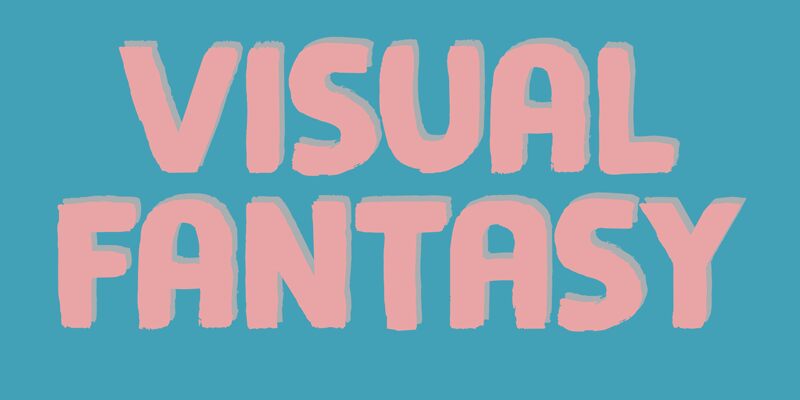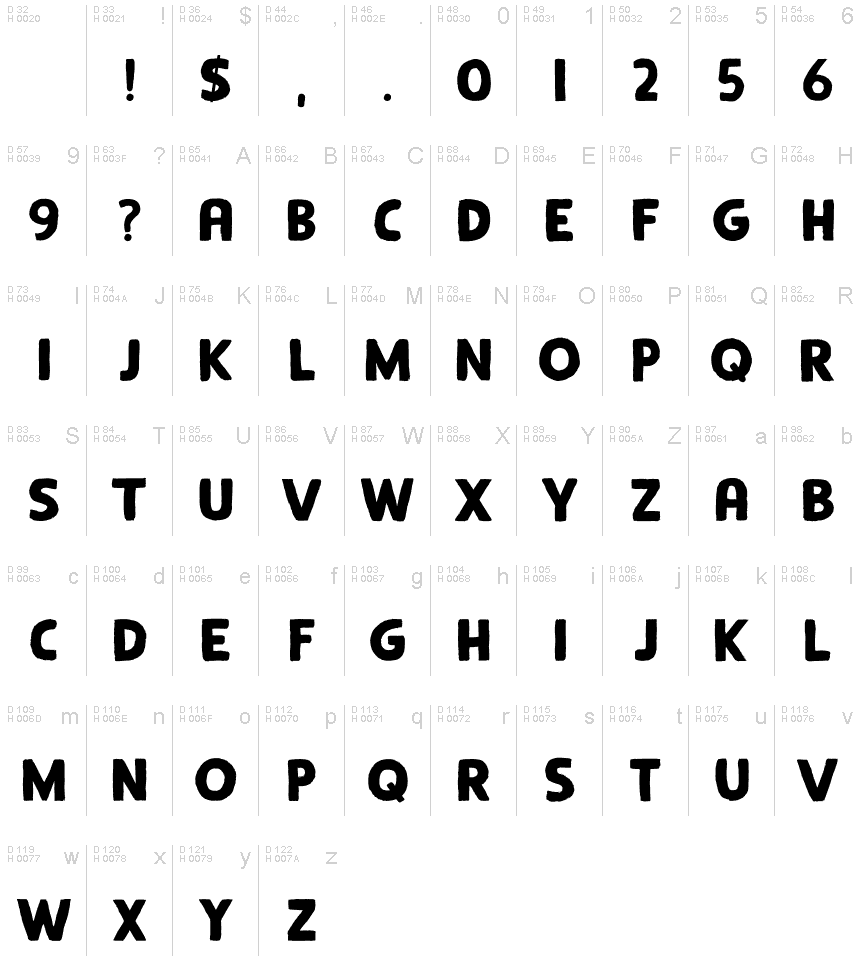
Visual Fantasy DEMO
Visual Fantasy, designed by D K, is a bold and playful display font perfect for any project that calls for a touch of whimsy. With its semi-expanded width and cartoon style, this typeface is sure to catch the eye and add personality to any design. From children's book covers to advertising campaigns, Visual Fantasy is versatile enough to suit a wide range of projects. The bold weight ensures that your message will be loud and clear, while the playful design adds an element of fun. Let Visual Fantasy inject some imagination into your next project!